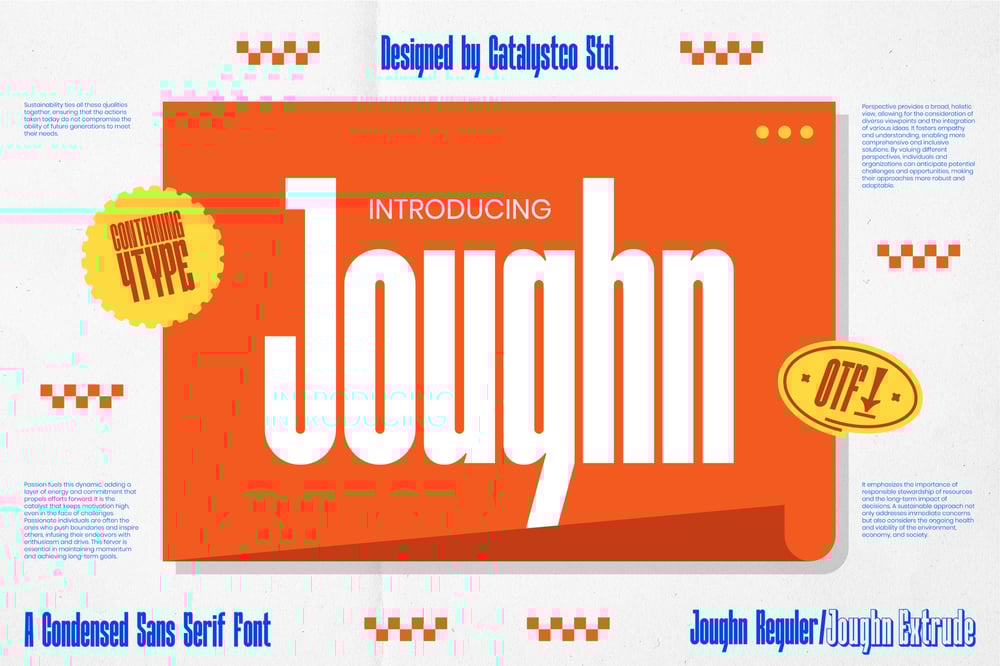
Joughn Font Family was designed by published by Catalystco Std. Joughn contains 3 styles and family package options. Joughn is a condensed sans-serif font with a modern and stylish design. Its tall, sleek letterforms and bold structure make it perfect for attention-grabbing headlines, branding, posters, and editorial layouts. With its contemporary appeal and strong visual presence, Joughn is an excellent choice for creative projects that demand a sophisticated yet dynamic touch. Whether used in fashion, advertising, or digital media, this font enhances any design with a striking and professional look.Main Features* Available in OpenType formats* Available in Regular & Italic Style* Available in Extrude & Italic Extrude Style* Uppercase & Lowercase characters* Numeral & Punctuations